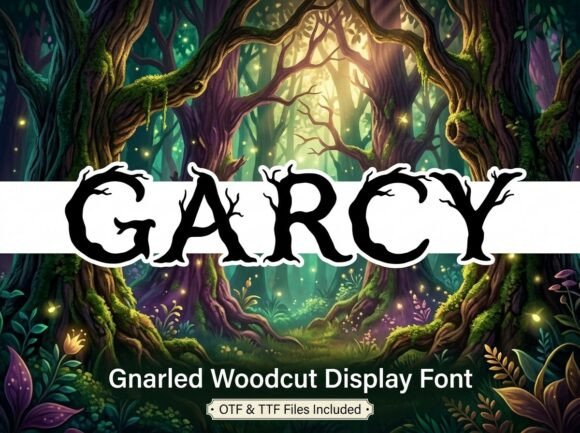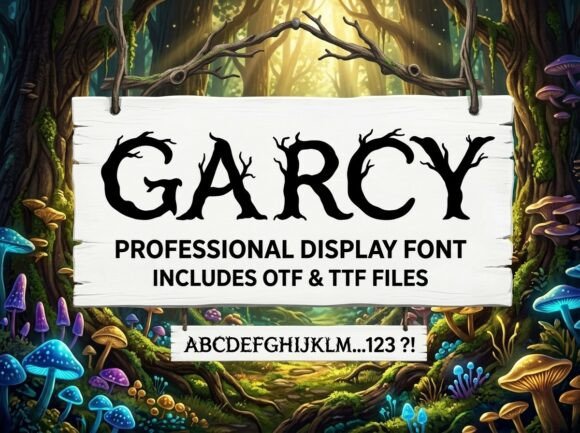
Introducing Garcy Font: The Ultimate Decorative Display Font for Creative Minds
Are you tired of using the same old fonts for your creative projects? Do you want to make a statement and add a touch of uniqueness to your designs? Look no further than Garcy Font, a stunning decorative display font that’s designed to be the center of attention. With its unique artistic elements and strong visual personality, this font is perfect for creators who want to break away from the ordinary and add a professional and polished finish to their work.
What Makes Garcy Font So Special?
Garcy Font is a versatile decorative display font that’s specifically designed for high-impact headlines, logos, and decorative initials. Its unique artistic elements and strong visual personality make it perfect for a wide range of creative projects, from bold headlines and artistic logos to creative packaging and more. Whether you’re a designer, craftsperson, or DIY enthusiast, Garcy Font is the perfect choice for anyone looking to add a touch of elegance and sophistication to their work.
Key Features of Garcy Font
- Unique Artistic Elements: Garcy Font features unique artistic elements that set it apart from other fonts. Its decorative and intricate design makes it perfect for adding a touch of elegance and sophistication to your work.
- Strong Visual Personality: This font has a strong visual personality that demands attention. Its bold and eye-catching design makes it perfect for headlines, logos, and other high-impact applications.
- Versatile: Garcy Font is versatile enough for use in a wide range of creative projects, from bold headlines and artistic logos to creative packaging and more.
- Professional and Polished Finish: Despite its decorative nature, Garcy Font maintains a professional and polished finish that’s perfect for use in professional designs.
Please note that Garcy Font is an ALL-CAPS (Uppercase Only) display typeface. This means that it does not include lowercase letters. It’s specifically designed for high-impact headlines, logos, and decorative initials where every letter is a work of art.
Why Choose Garcy Font?
There are many reasons why Garcy Font is the perfect choice for designers and crafters. Here are just a few:
- Unique and Eye-Catching: Garcy Font is a unique and eye-catching font that’s sure to make your designs stand out from the crowd.
- High-Quality Design: With its intricate and decorative design, Garcy Font is perfect for use in high-end designs and professional applications.
- Versatile: Garcy Font is versatile enough for use in a wide range of creative projects, from print to digital.
- Professional and Polished Finish: Despite its decorative nature, Garcy Font maintains a professional and polished finish that’s perfect for use in professional designs.
Tips and Tricks for Getting the Most Out of Garcy Font
- Use it for Headlines and Logos: Garcy Font is perfect for use in headlines and logos, where its bold and eye-catching design can really make an impact.
- Experiment with Different Colors: Garcy Font looks great in a wide range of colors, from bold and bright to subtle and muted.
- Pair it with Other Fonts: Garcy Font pairs well with a wide range of other fonts, from simple and elegant to bold and decorative.
| Font Name | Garcy Font |
| Author | pavel |
In conclusion, Garcy Font is a stunning decorative display font that’s perfect for designers and crafters who want to add a touch of elegance and sophistication to their work. With its unique artistic elements, strong visual personality, and versatile design, Garcy Font is the perfect choice for anyone looking to make a statement and break away from the ordinary.